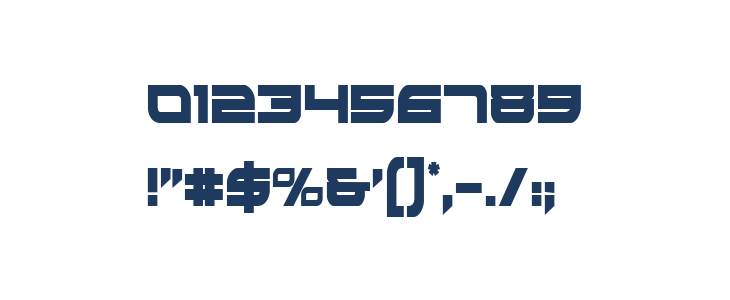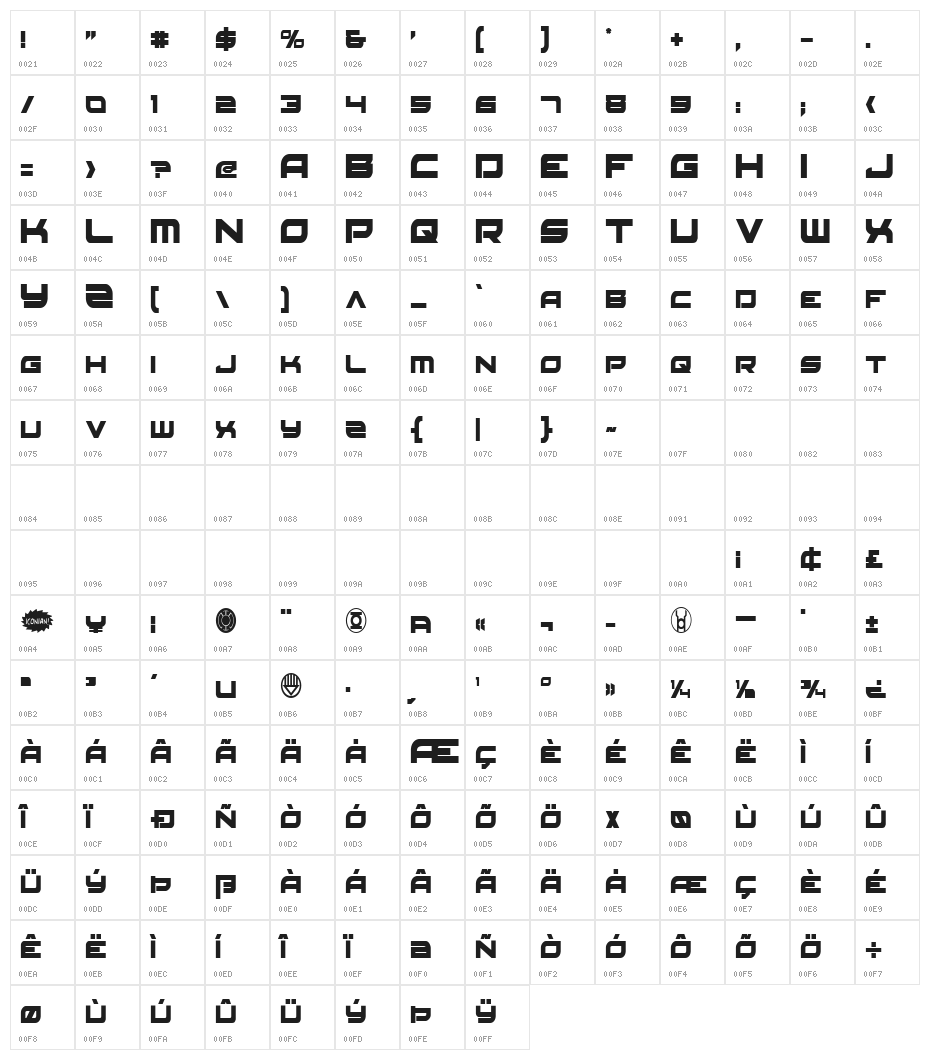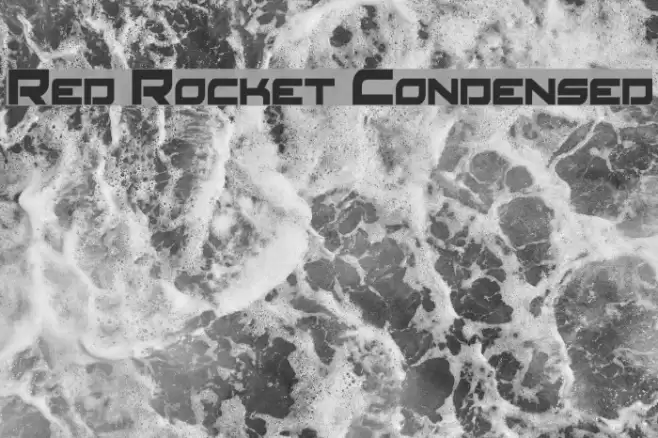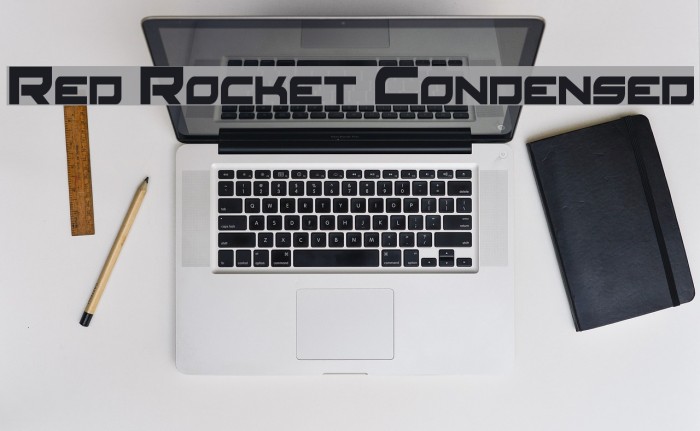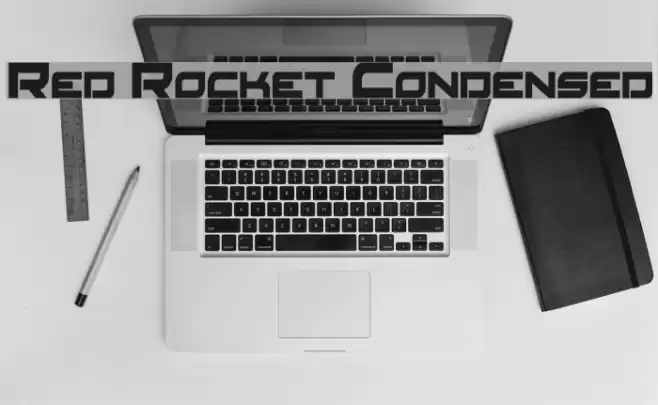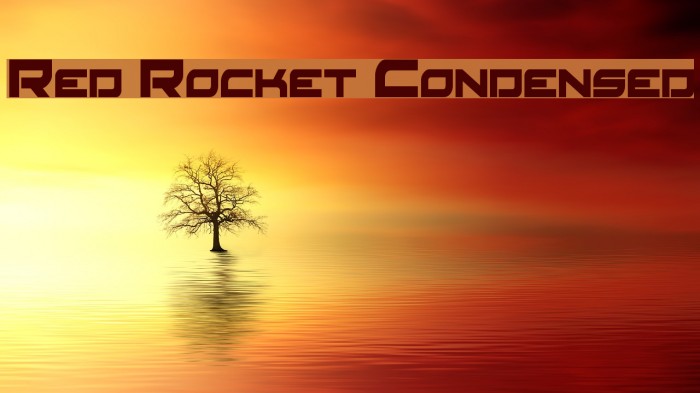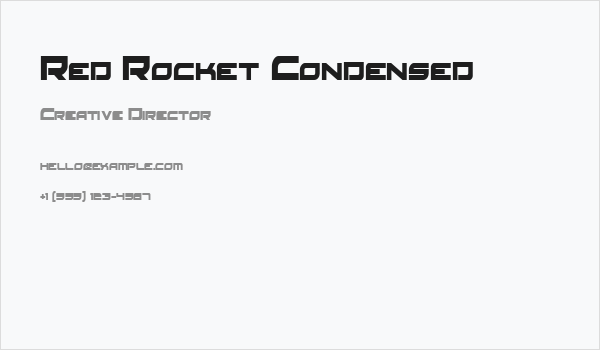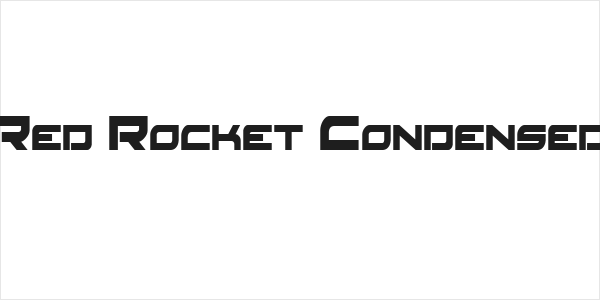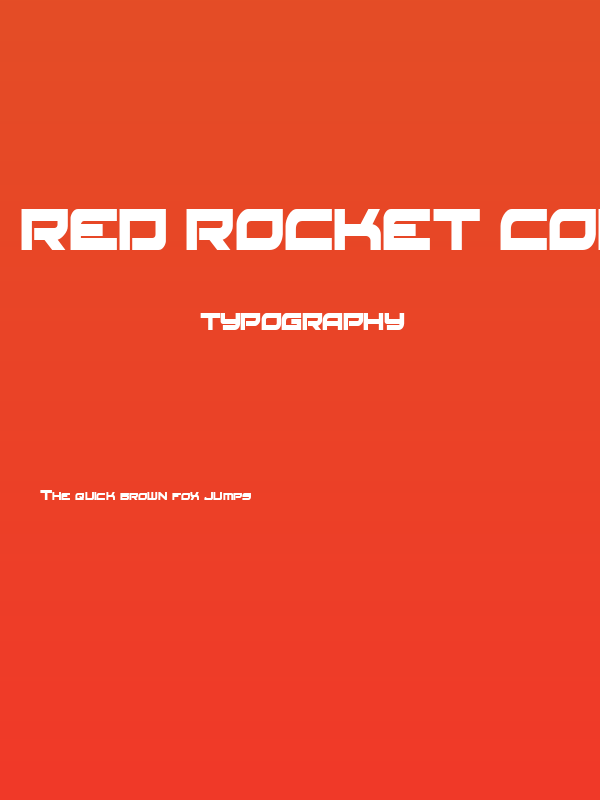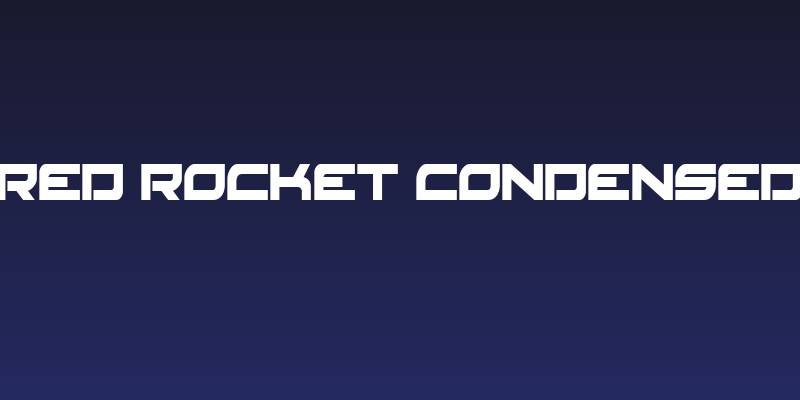
Red Rocket Condensed Font
Red Rocket Condensed Description
This font features a bold, geometric design with a futuristic flair. The characters are condensed, giving a compact and efficient appearance. The angular lines and sharp edges create a sense of speed and modernity, making it ideal for projects that require a dynamic and cutting-edge look. The uppercase and lowercase letters maintain a consistent style, while the numerals and special characters complement the overall aesthetic. This font is perfect for creating impactful headlines, logos, and branding materials that need to stand out with a strong visual presence.